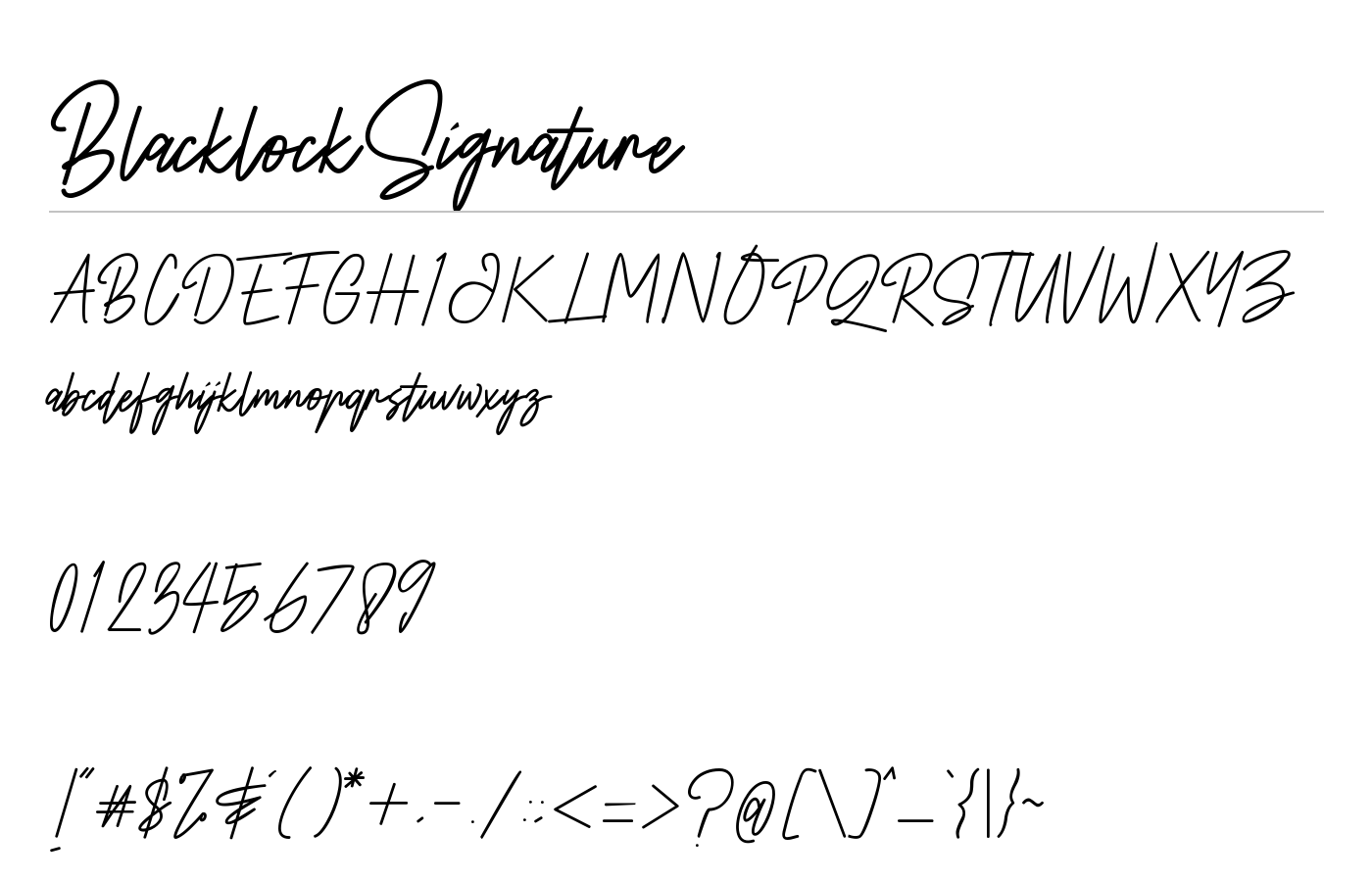
BlacklockSignature is an elegant, modern script font that mimics natural handwriting with smooth, flowing strokes and a slightly casual feel. Its thin, airy lines and tall, narrow letterforms make it perfect for adding a personal, stylish touch to branding, invitations, and editorial design. This font works best in headlines or logos where a sophisticated yet approachable look is desired.
BlacklockSignature Font
About BlacklockSignature Font